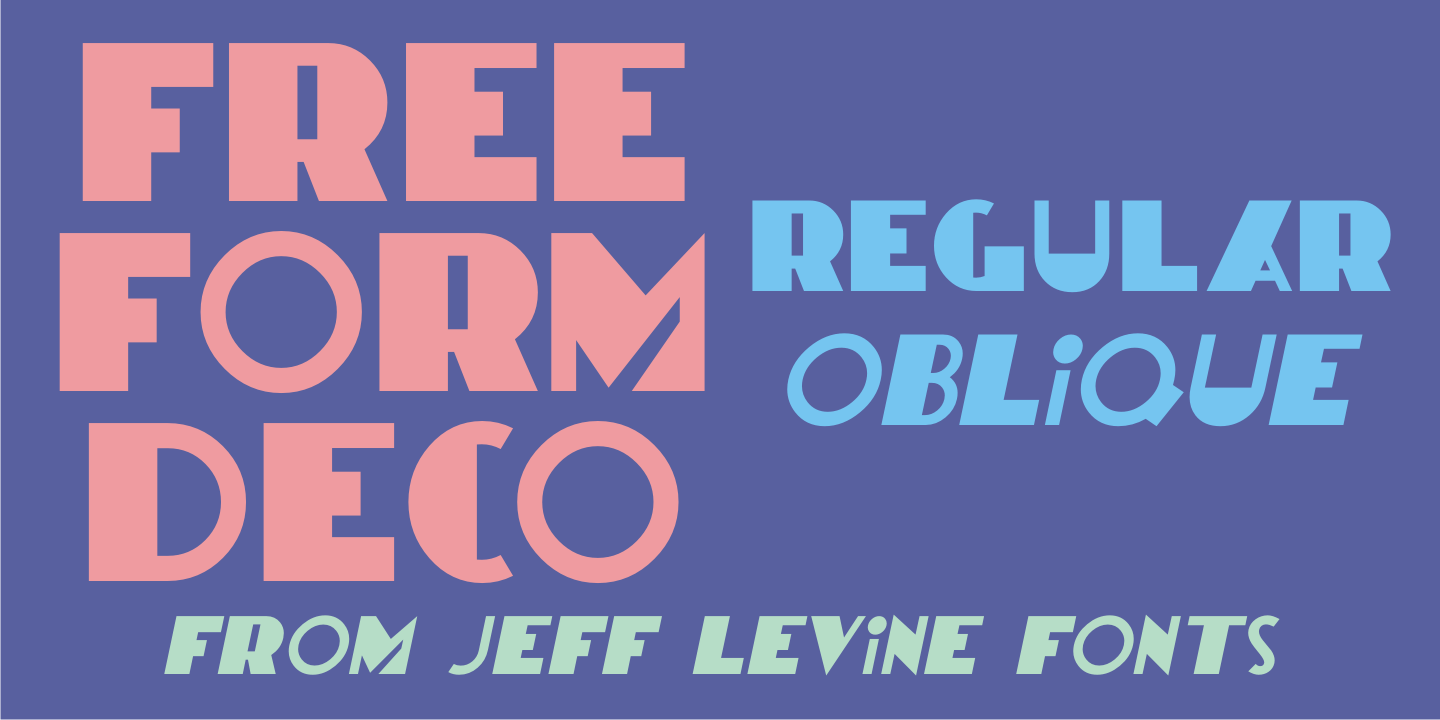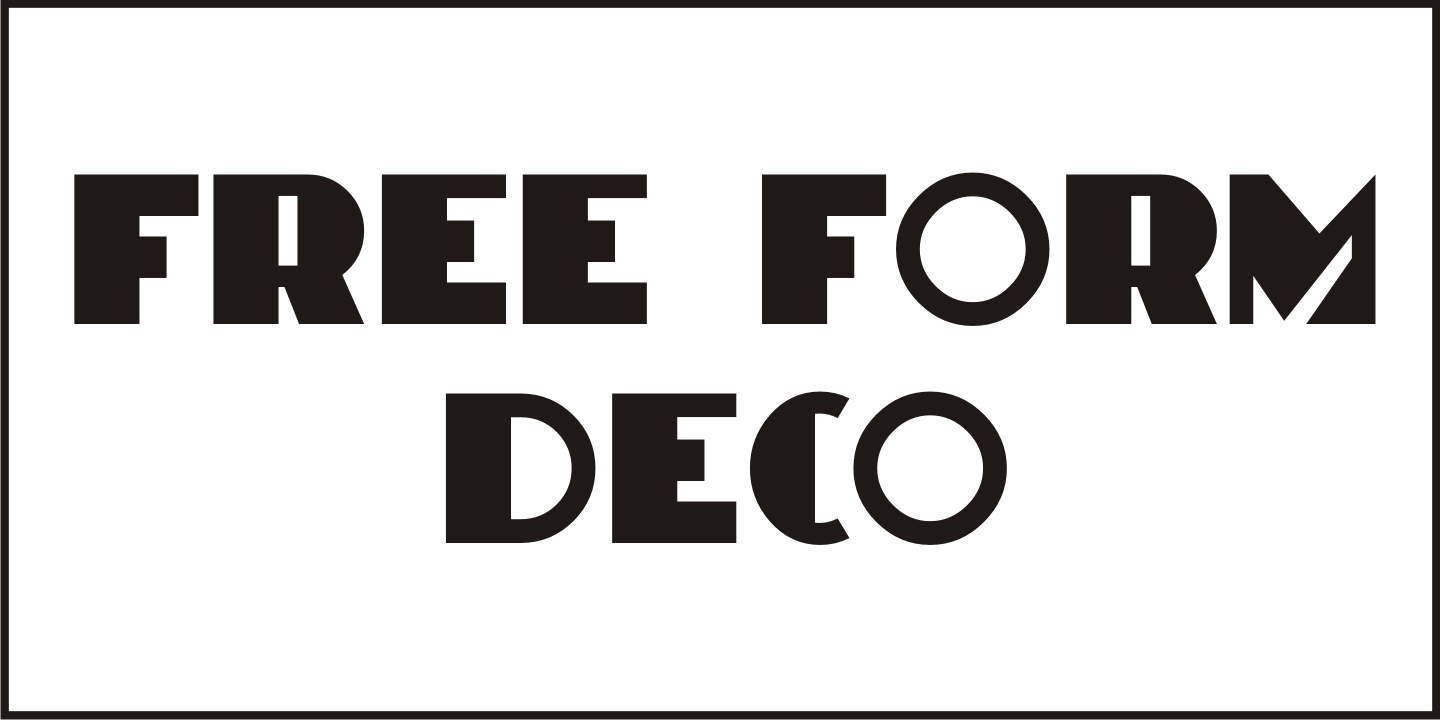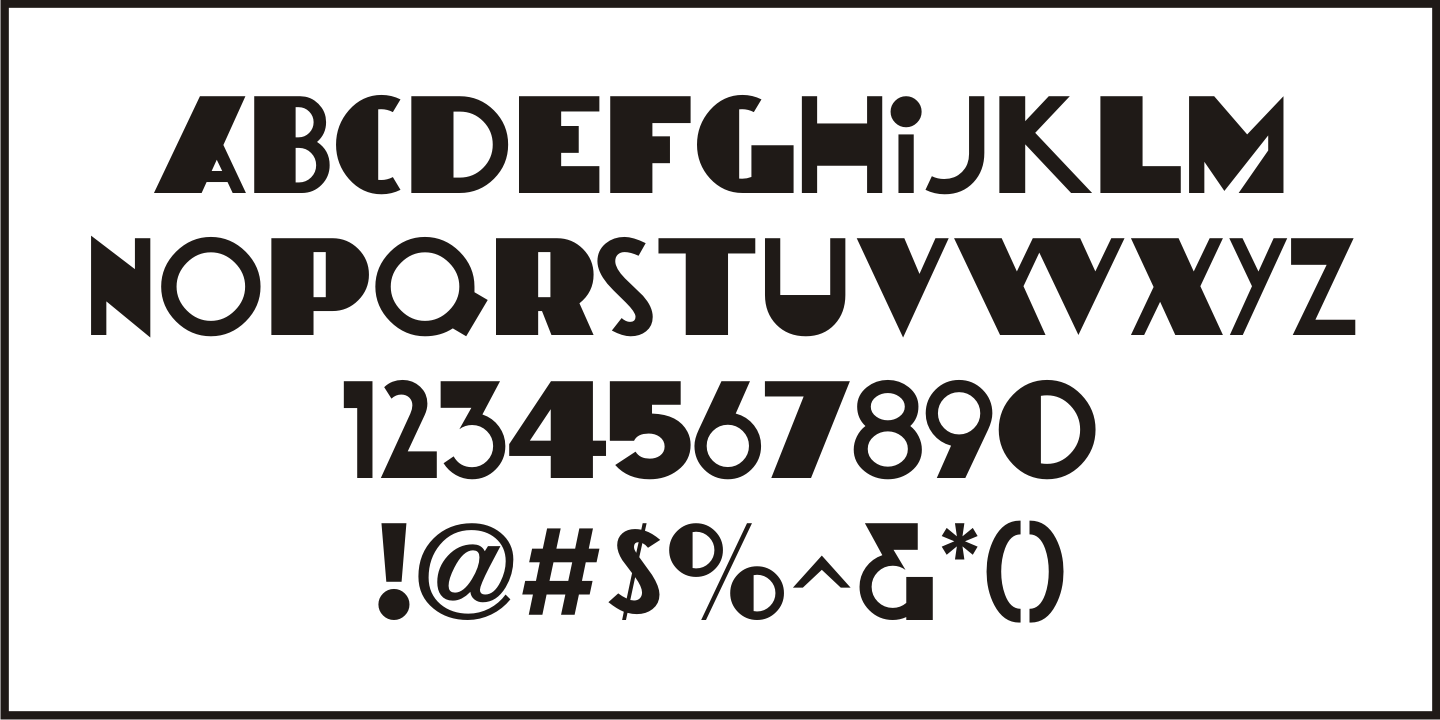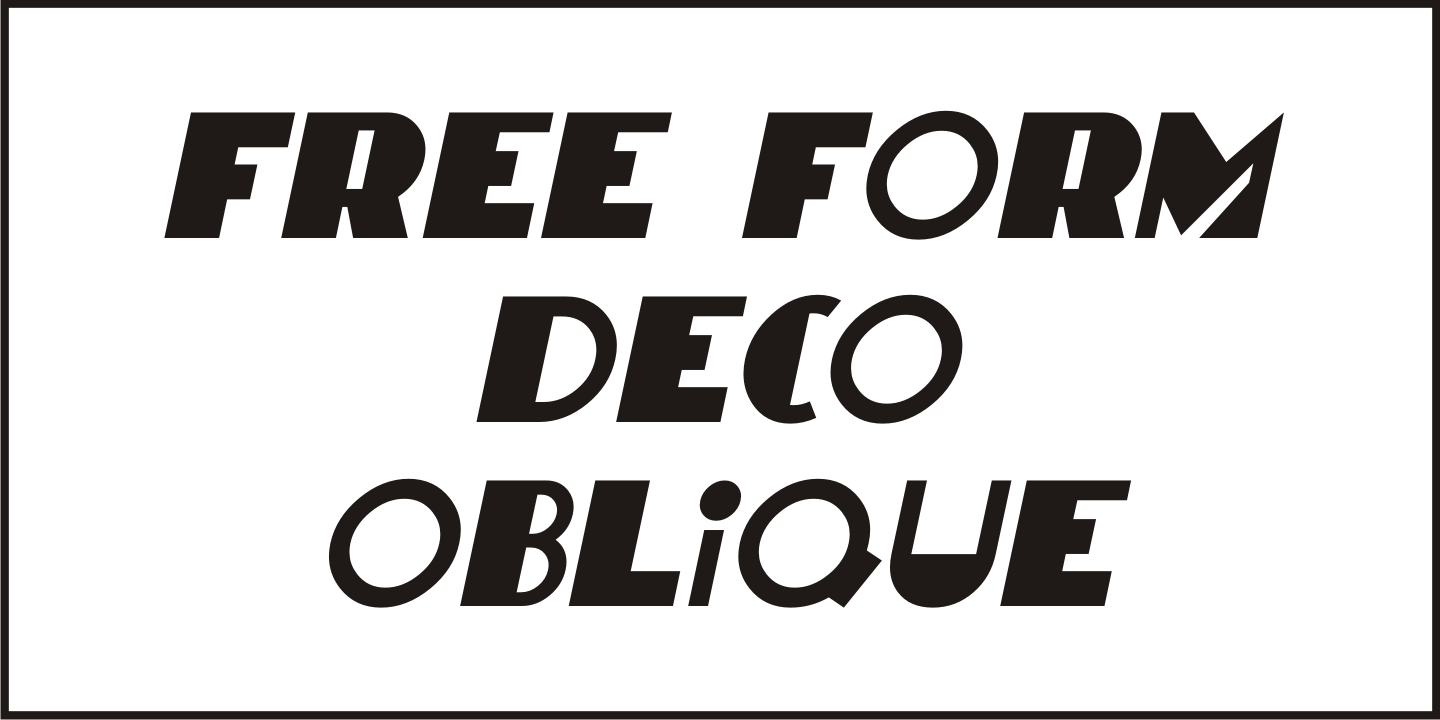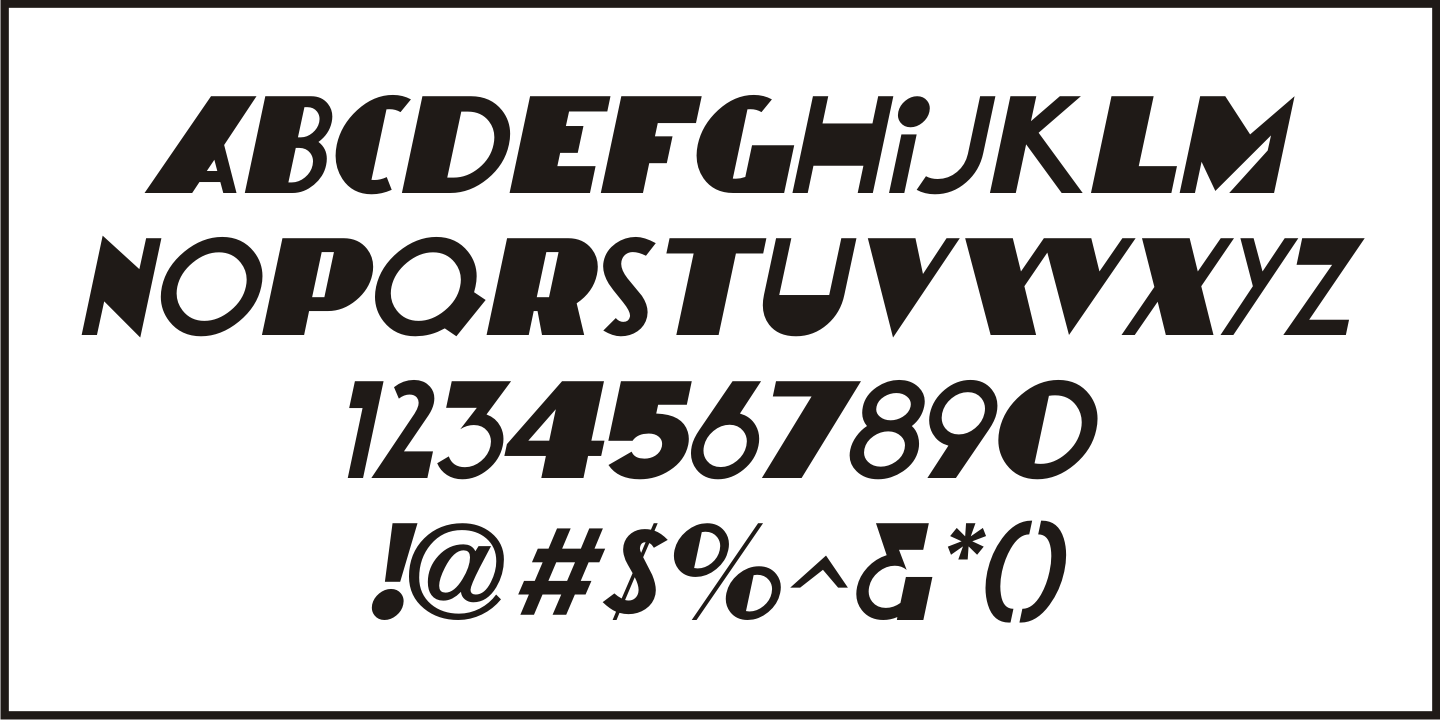
Free Form Deco
Toward the end of the 1920s, Art Deco influences were starting to creep into modern design.
The hand lettered title on the cover of the1928 sheet music for 'Fascinatin' Vamp” not only embraced the new Deco movement, but sent it on a wild typographic ride.
Letters of mixed thicknesses and stylings made up the two word title, and this unusual group of letter shapes became the inspiration for Free Form Deco JNL, which is available in both regular and oblique versions.